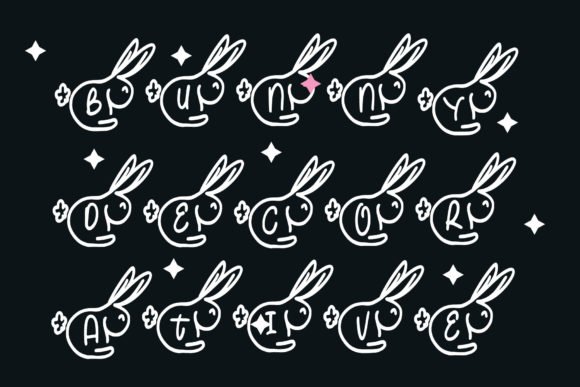
Springing into Creativity with Bunny Font
Have you ever been rummaging through your stash of crafting supplies, only to stumble upon a hidden treasure trove of colorful papers, glittery embellishments, and an old font that sparks a wave of nostalgia? That’s exactly what happened to me, and it led me to discover the delightful Bunny Font, a bunny-friendly, fresh, and unique decorative font that’s perfect for adding a playful touch to your creations.
Designed specifically for holiday-themed greeting cards and other crafting projects, Bunny Font is a game-changer for designers looking to inject a little whimsy and charm into their work. With its cute, childish feel, this font is sure to bring a smile to the faces of your loved ones, making it a valuable addition to any designer’s toolkit.
Bunny Font Key Features
- Font Family: Bunny Font is a sans-serif font family designed specifically for digital use.
- Unique Characteristics: Bunny Font features a unique, hand-drawn style with a playful and approachable feel, making it suitable for use in children’s books, educational materials, and other applications where a friendly tone is desired.
Bunny Font Review
I recently had the chance to work with the Bunny Font and here’s my honest take.
- The Bunny Font is undeniably cute and playful. It’s perfect for adding a touch of whimsy to your design projects.
- The font is highly customizable, allowing you to adjust the weight, size, and color to suit your design needs.
- The font includes a wide range of characters, including international characters, making it a great choice for global designs.
- The Bunny Font can be a bit too playful for more serious or professional designs. It’s best suited for children’s products, social media, or other fun projects.
- The font may not be the best choice for long blocks of text, as it can be difficult to read at smaller sizes.
Overall, the Bunny Font is a great choice for designers looking to add a touch of playfulness to their projects. While it may have some limitations, it’s a fun and versatile font that can be a great addition to any design toolkit.
Use Bunny Font for whimsical and playful designs, such as:
- Children’s book covers
- Party invitations
- Social media posts for pet-related businesses
Alternatives to Bunny Font
Lato is a clean, modern sans-serif font that is highly legible in both print and digital media. It is ideal for use in titles, headings, and body text where a neutral and professional tone is required.
Compared to Bunny Font, Lato has a more formal and corporate feel, whereas Bunny Font has a playful and whimsical tone. Lato is a better choice for business, tech, and news-related projects.
Playfair Display is a luxurious, elegant script font that adds a touch of sophistication and refinement to any design. It is perfect for use in titles, headings, and quotes where a high-end and premium feel is desired.
Unlike Bunny Font, Playfair Display has a more refined and sophisticated tone, whereas Bunny Font has a playful and casual feel. Playfair Display is a better choice for luxury brands, high-end fashion, and fine art projects.
Crimson Text is a serif font that offers a unique blend of elegance and readability. It is ideal for use in body text and paragraphs where a classic and timeless feel is required.
Compared to Bunny Font, Crimson Text has a more traditional and classic tone, whereas Bunny Font has a playful and modern feel. Crimson Text is a better choice for book publishing, academic writing, and historical projects.
Aleo
Aleo is a modern sans-serif font that is highly versatile and adaptable to various design projects. It is perfect for use in titles, headings, and body text where a clean and professional tone is required.
Unlike Bunny Font, Aleo has a more neutral and versatile tone, whereas Bunny Font has a playful and whimsical feel. Aleo is